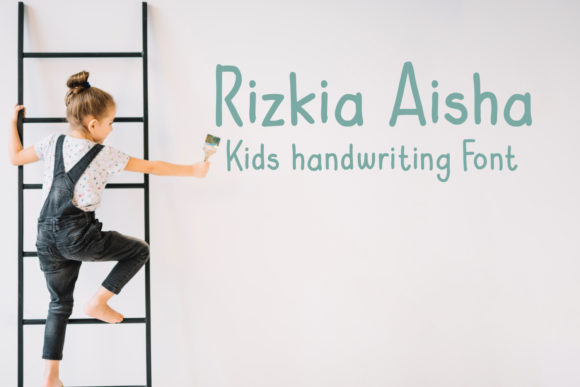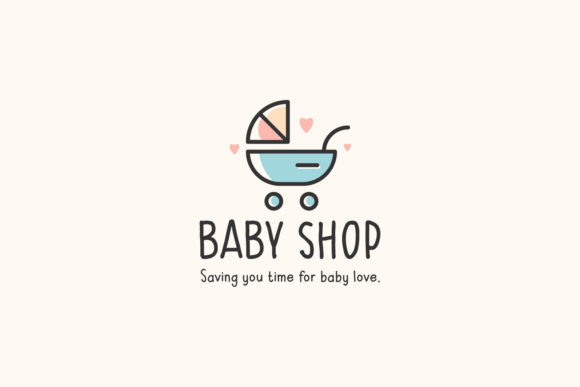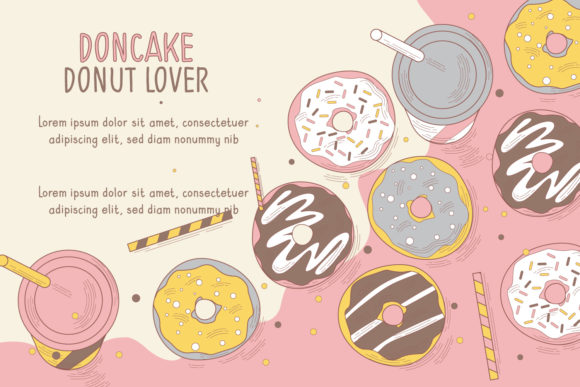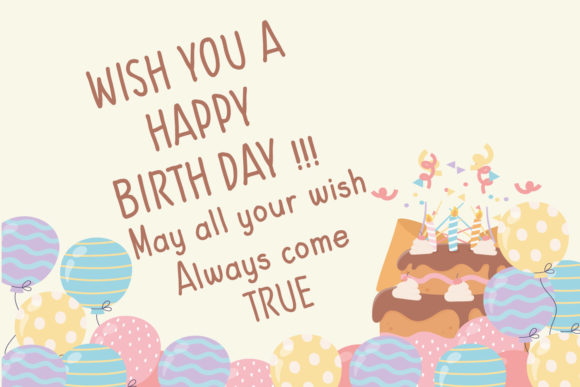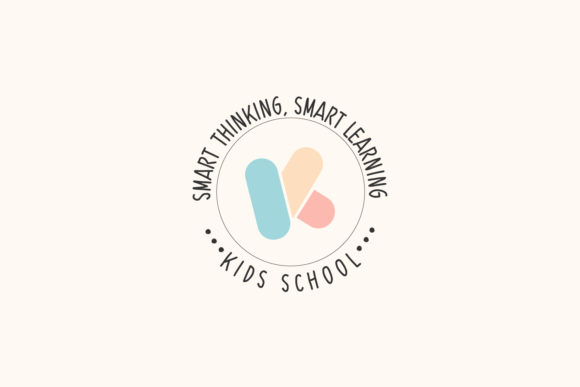
Rizkia Aisha Font
About Rizkia Aisha Font
Rizkia Aisha is a friendly and kids handwritten font with a unique style. It’s perfect to add a playful touch to all your designs.